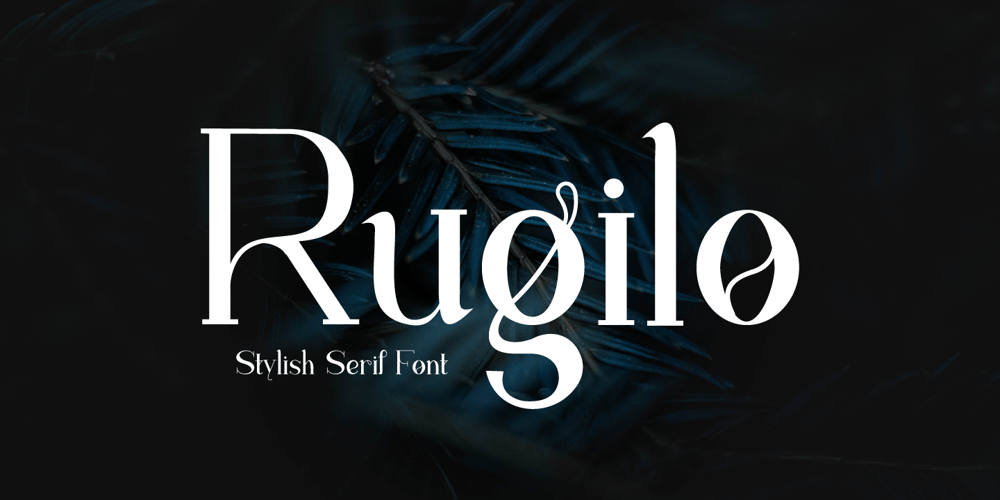
Rugilo Font Family was designed by Hayinah and published by Rockboys Studio. Rugilo contains 1 styles and family package options. Rugilo is a clean serif font family that is minimal and simple. This is a modern and unique font set that is sure to amplify all your design and typography needs.PUA encoded = Accessible in the Adobe Illustrator, Adobe Photoshop, Adobe InDesign, even work on Microsoft Word. PUA Encoded Characters – Fully accessible without additional design software.Thank You